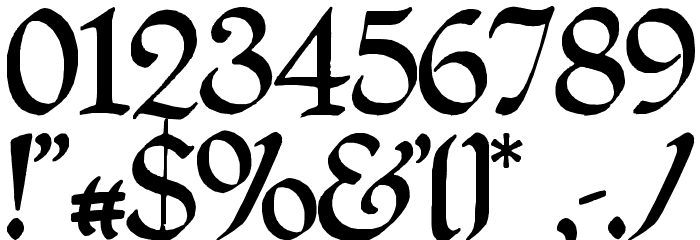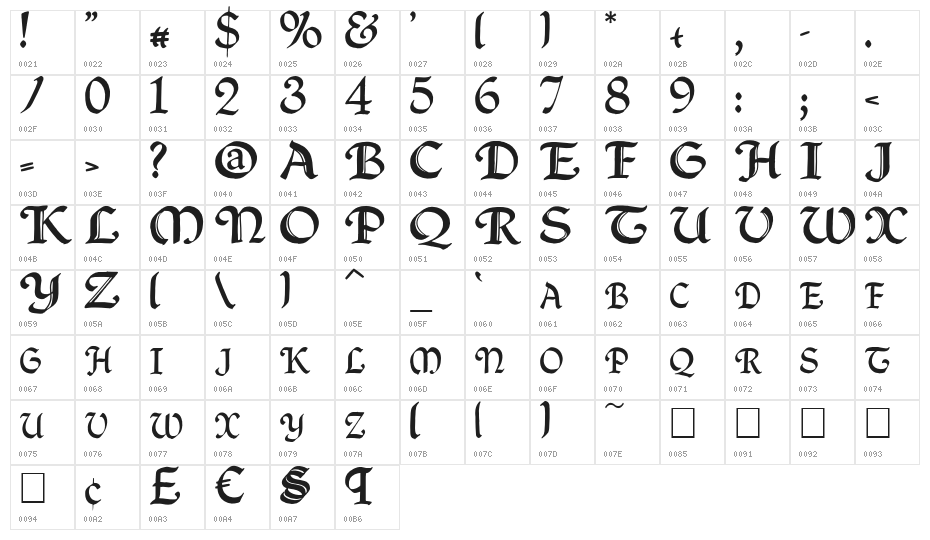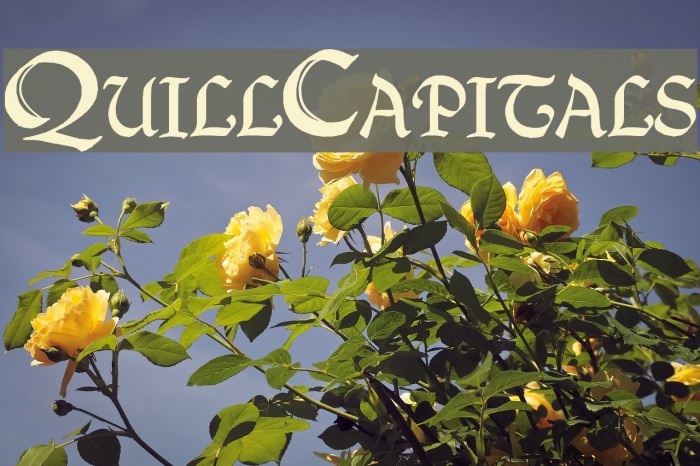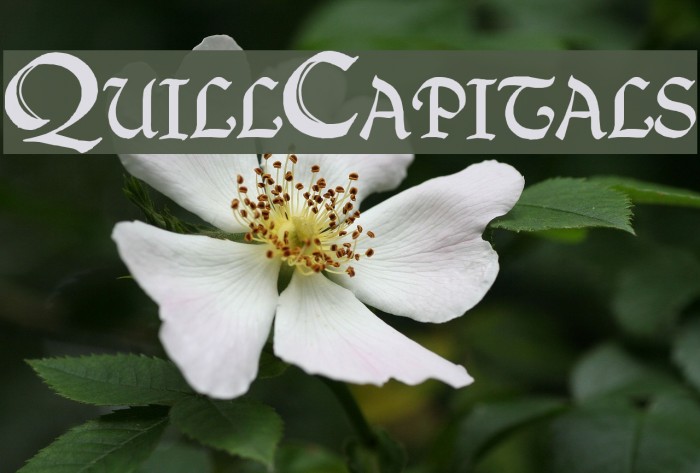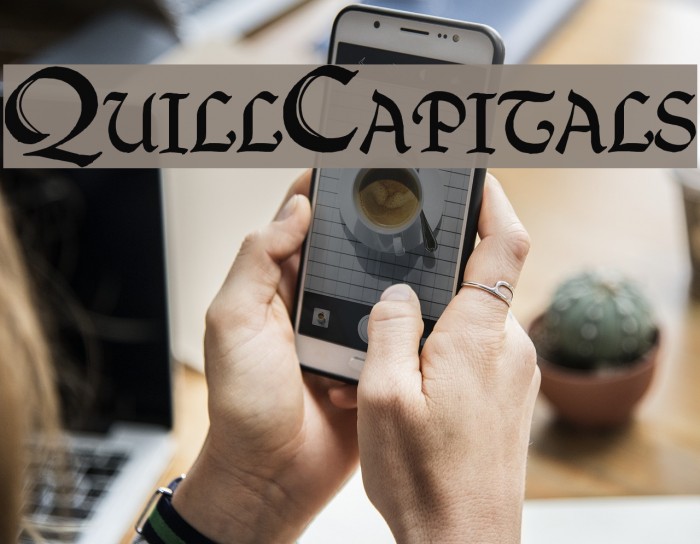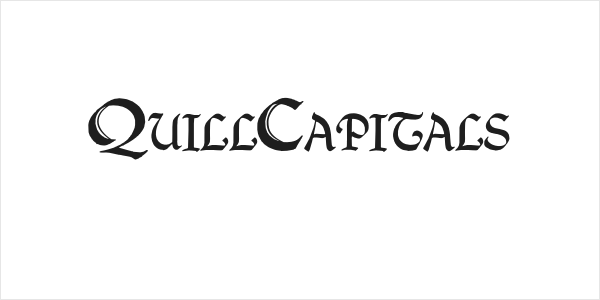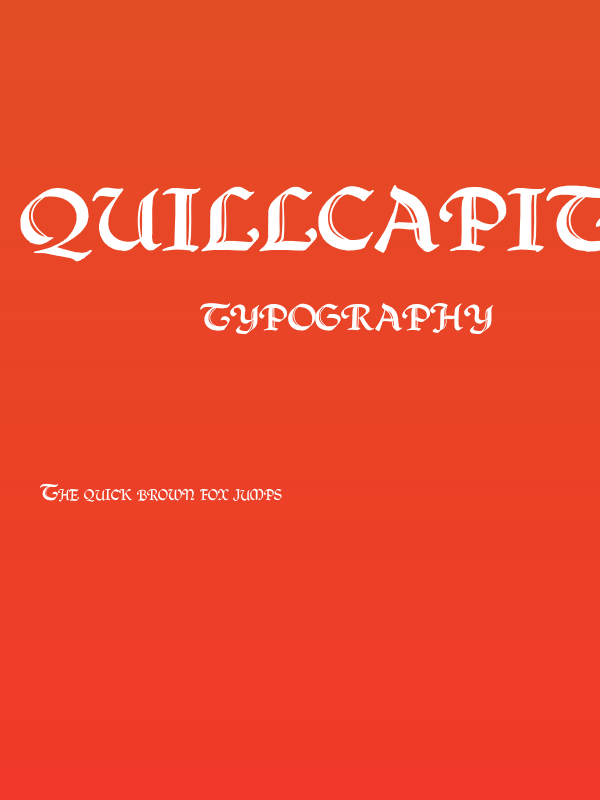
QuillCapitals Font
QuillCapitals Description
This font exudes a classic and elegant style reminiscent of traditional calligraphy. The characters are crafted with a distinct flair, featuring sharp, pointed serifs and a flowing, cursive-like structure. The uppercase letters are bold and commanding, while the lowercase letters maintain a consistent, harmonious flow. The numerals are equally stylized, with unique curves and angles that complement the overall aesthetic. Special characters are designed with intricate details, enhancing the font's decorative appeal. This typeface is perfect for projects that require a touch of sophistication and historical charm.
| Proposed Projects | Ideal for wedding invitations, historical documents, luxury branding, and decorative headlines. |